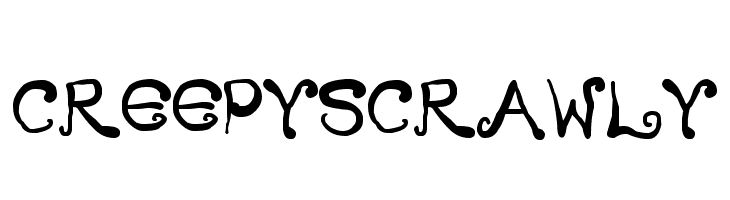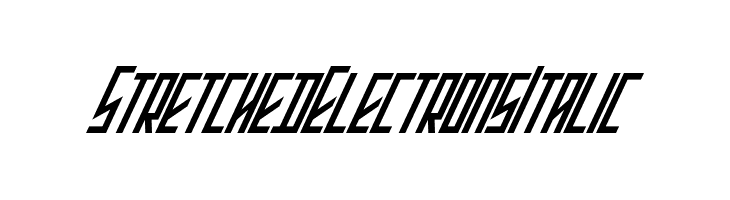
A bold, rugged font with an organic, ink-blot appearance.
A distressed, futuristic font with a bold, industrial aesthetic.
A distressed, italicized font with a futuristic, mechanical style.
A whimsical and eerie font with playful, hand-drawn characters.
A dynamic, italicized font with a futuristic and sleek design.
A bold, geometric font with a futuristic and digital style.
A futuristic, geometric font with sharp angles and a bold presence.
A futuristic, angular italic font with a dynamic and modern style.
A bold, dripping font perfect for horror-themed designs.